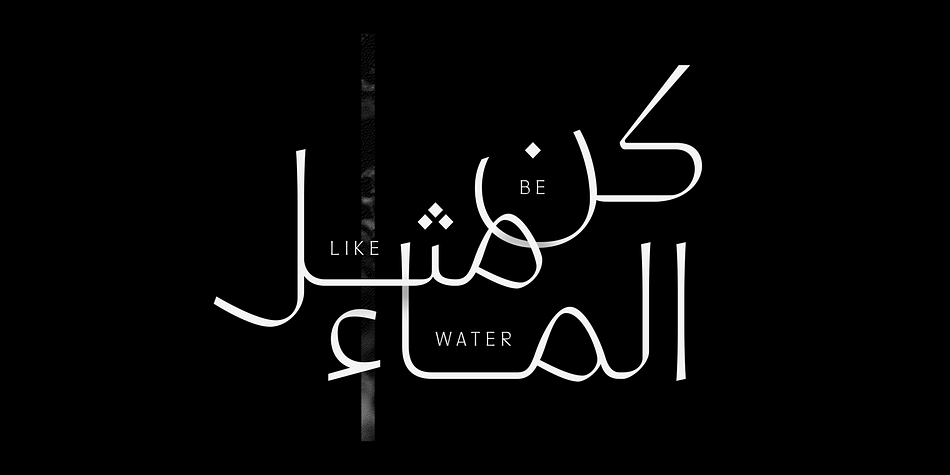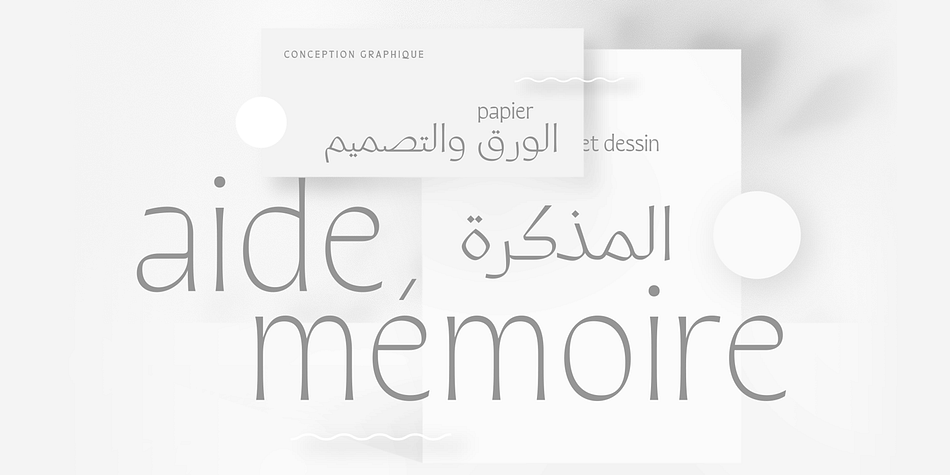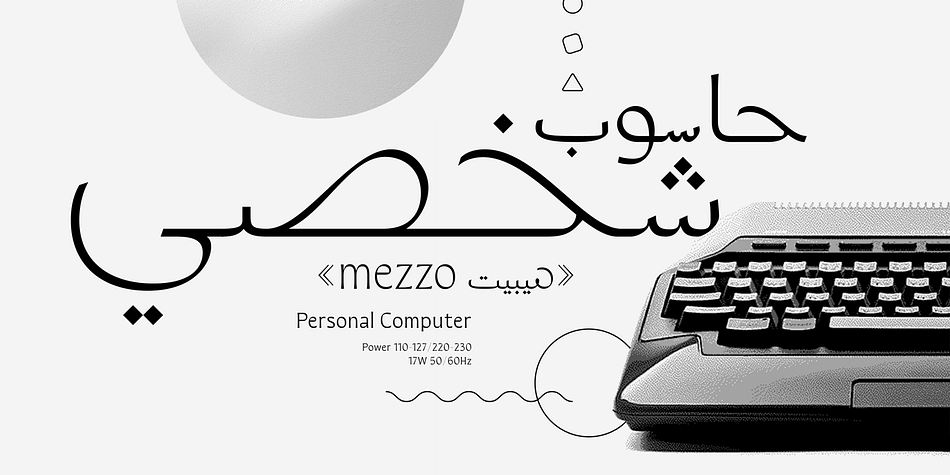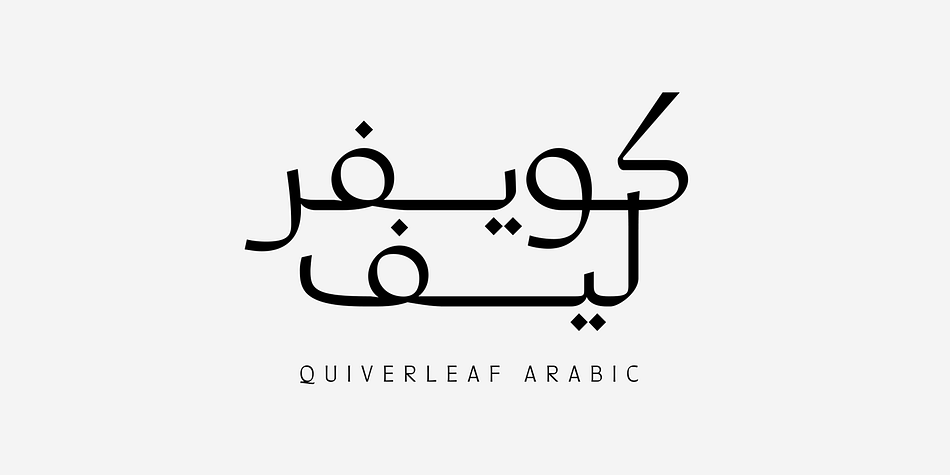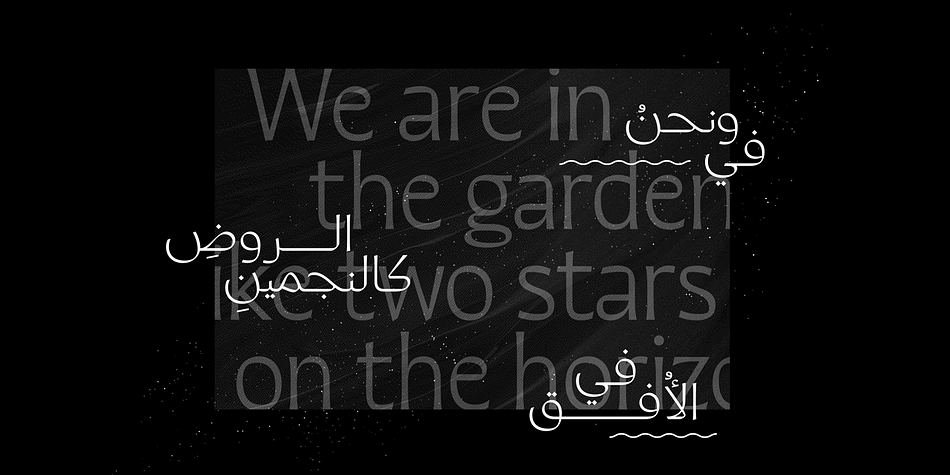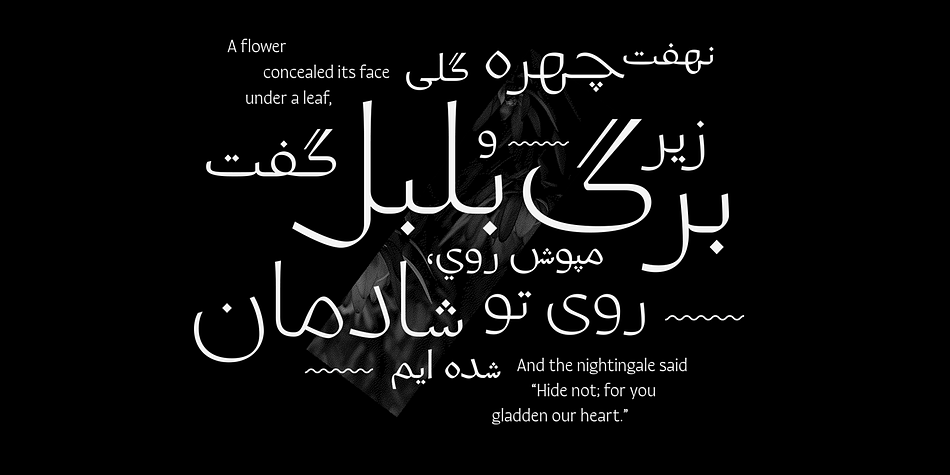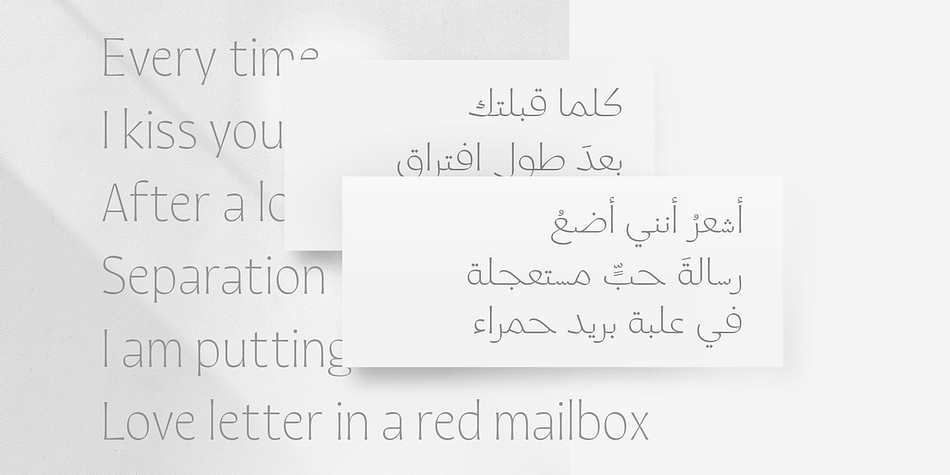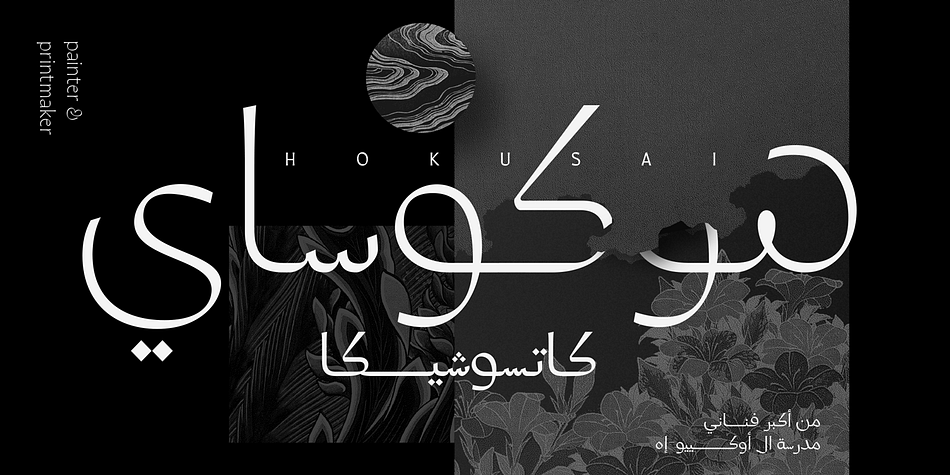
Designed by Connary Fagen, Quiverleaf Arabic CF is a sans serif font family. This typeface has five styles and was published by Connary Fagen Type Design.
Quiverleaf Arabic CF brings the flowing movement of the original Quiverleaf typeface to the Arabic script. Five weights, from a delicate thin to a hearty extra bold, cover both Latin and Arabic scripts in a gorgeous and visually unified font family.